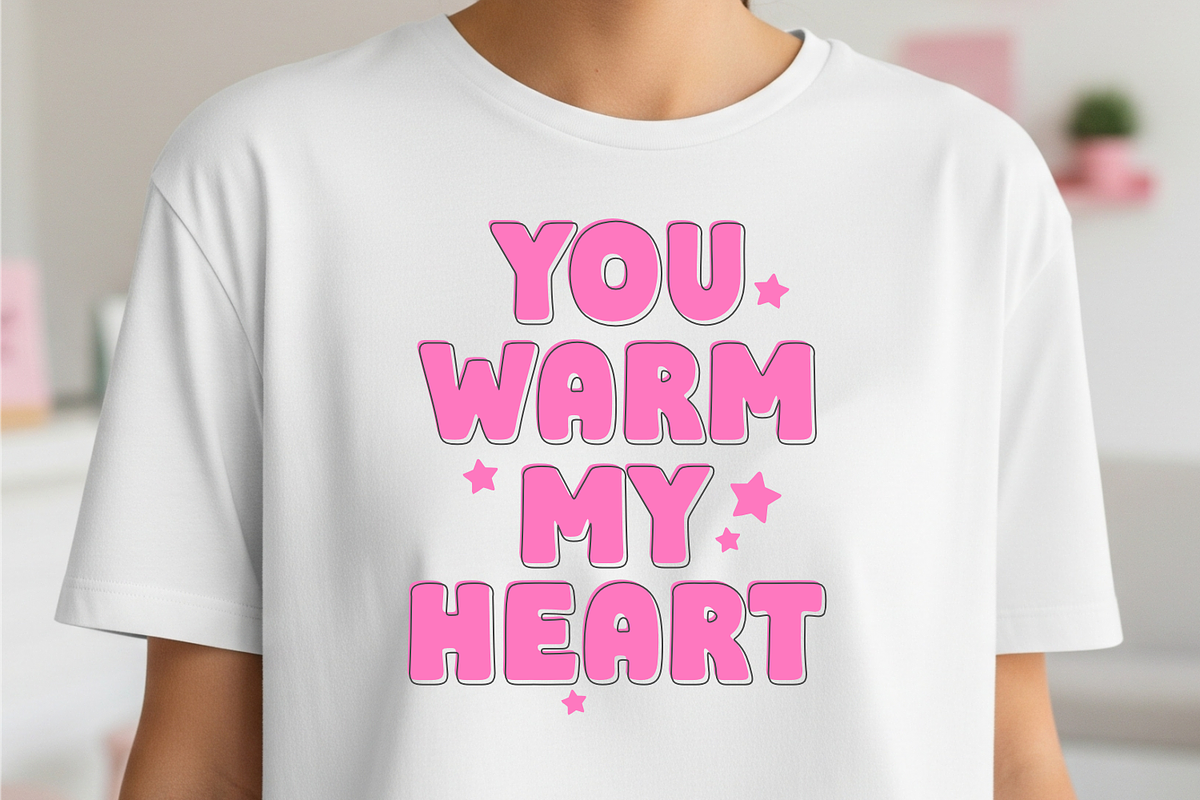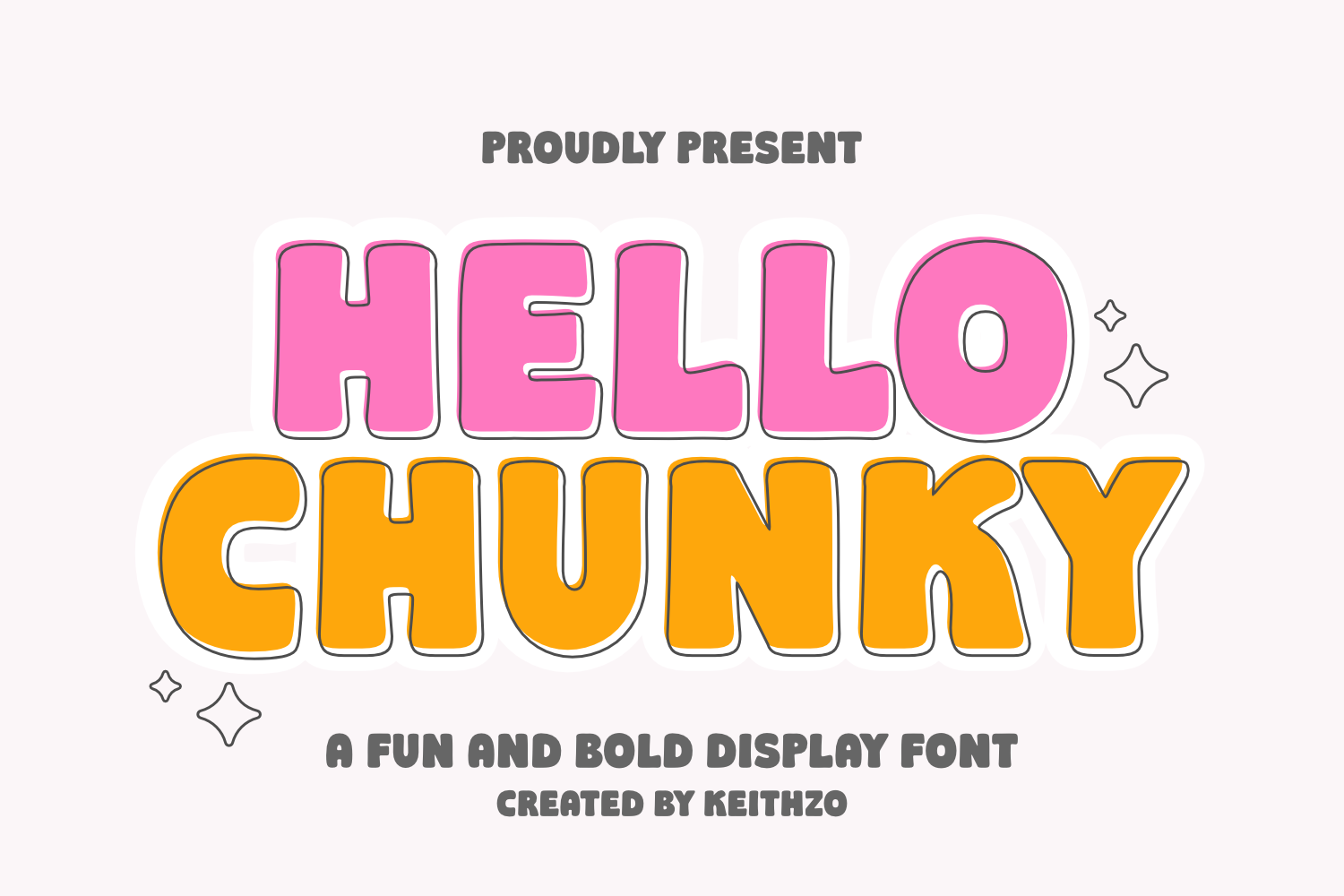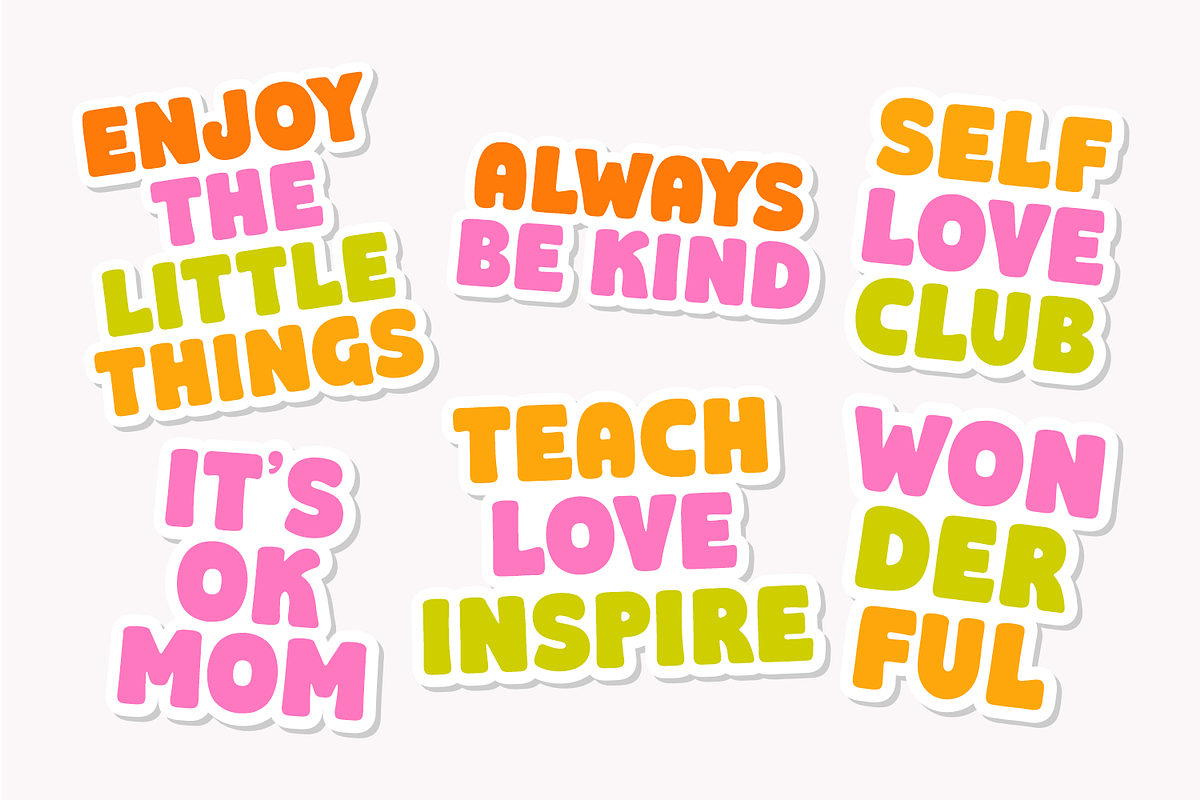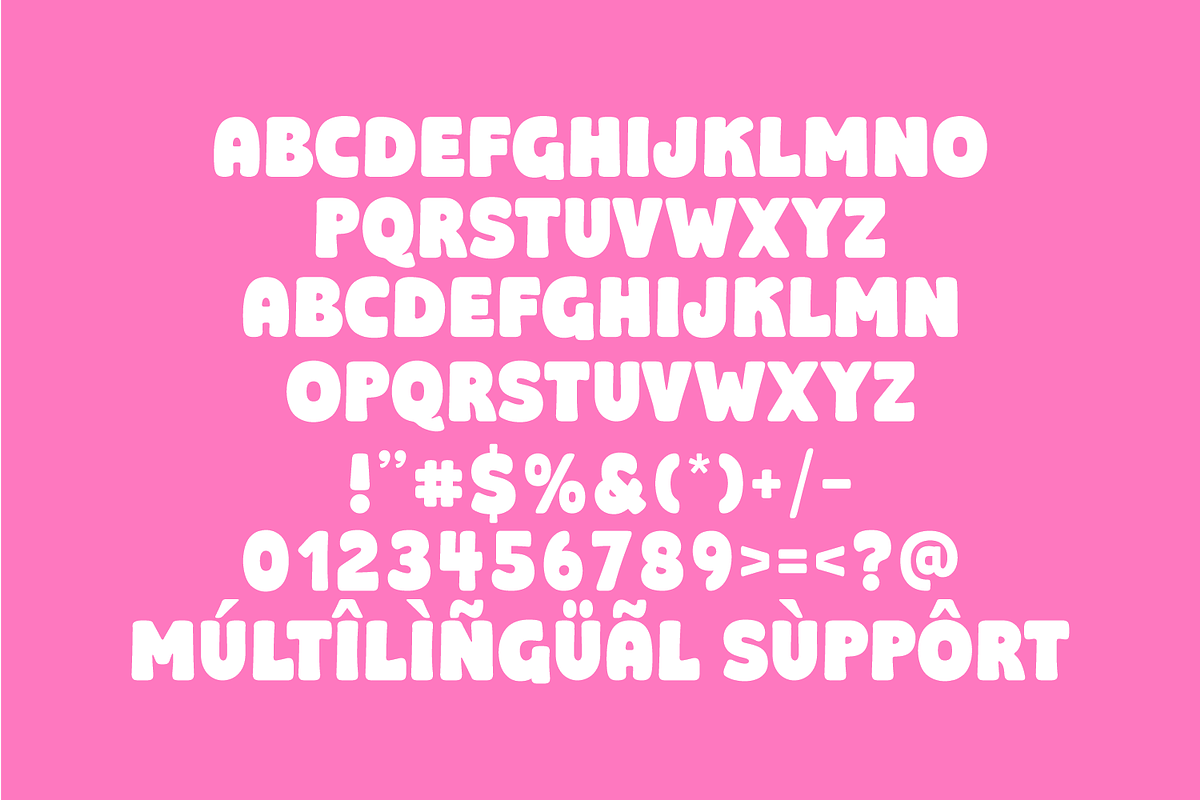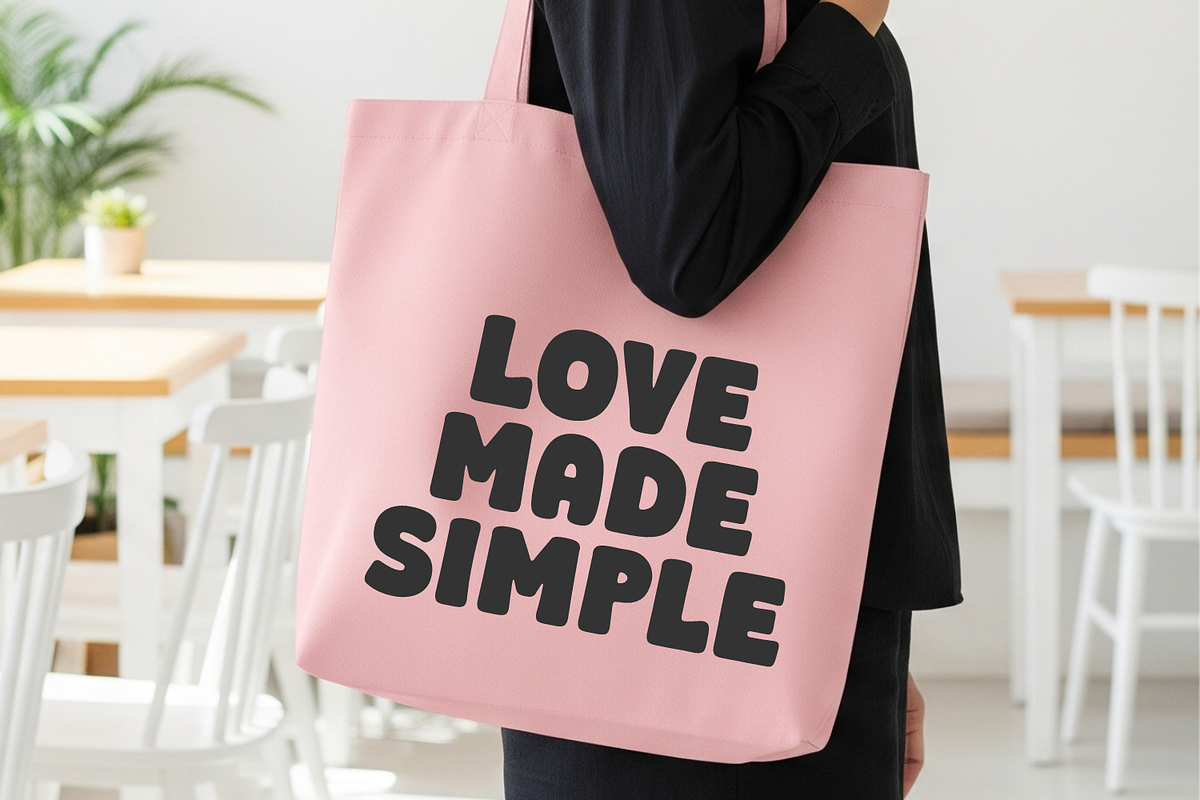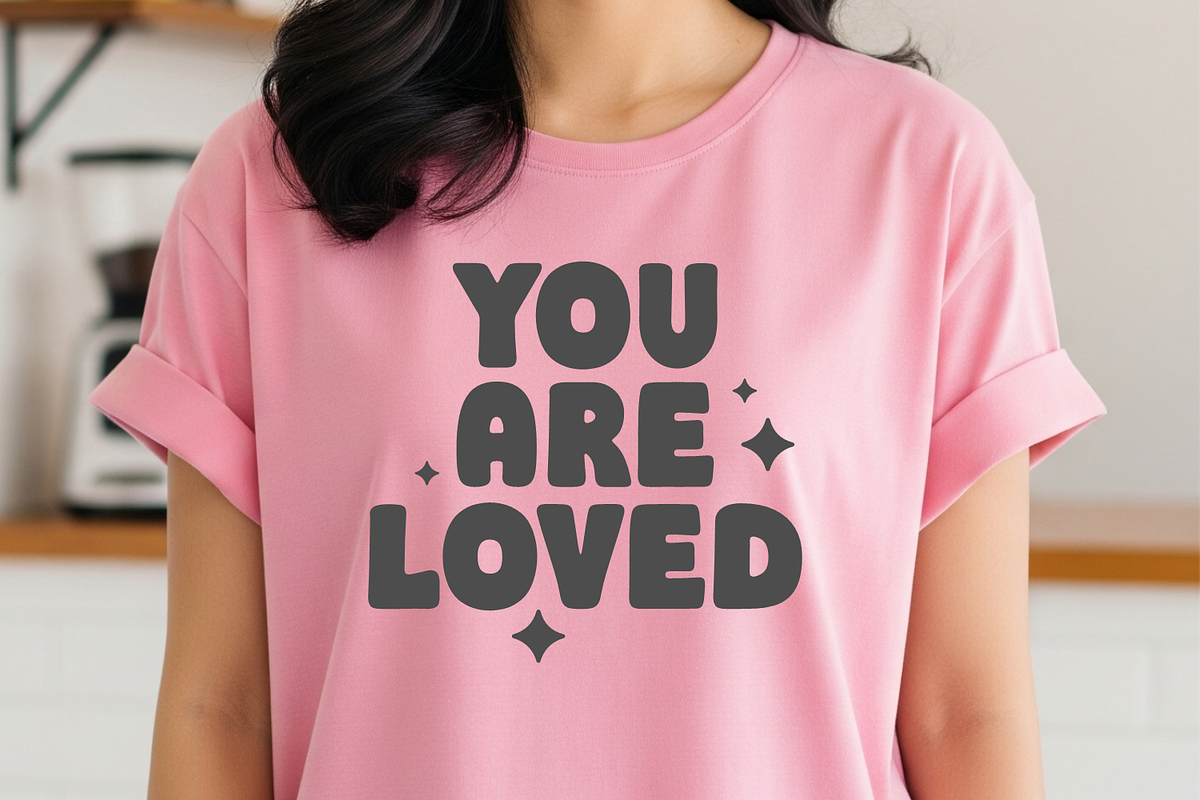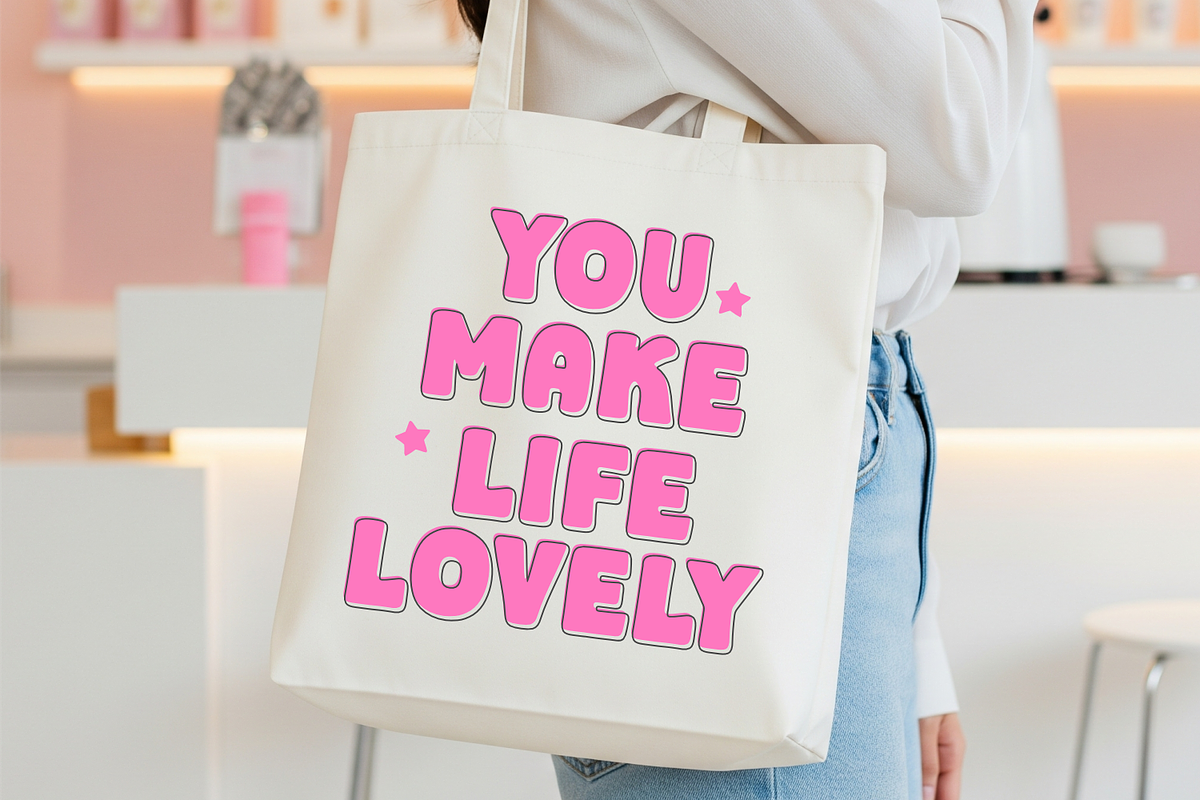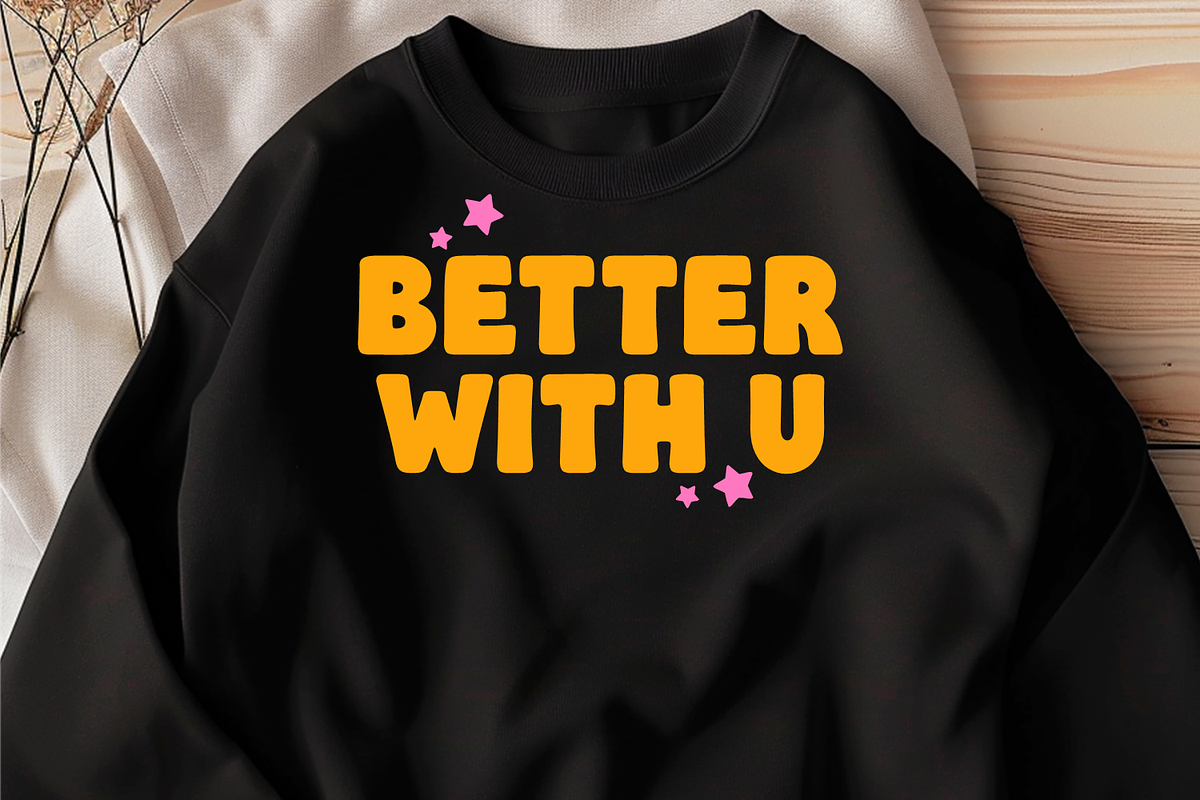
Hello Chunky - Bold Display Font
Introducing “Hello Chunky”, a lively and bold display font designed to infuse your projects with a sense of fun, energy, and joy. This chunky, bubble-inspired typeface offers thick, rounded characters that can powerfully highlight every word, making it the perfect pick for attention-grabbing titles, lively posters, and stand-out branding identities.
With its modern, friendly aesthetic, Hello Chunky can effortlessly inject a potent dash of boldness into your designs. Whether you’re crafting professional marketing collateral, developing children’s goods, or pursuing personal craft activities, this adaptable typeface can raise the visual appeal through the roof.
Fashion designers will especially appreciate how Hello Chunky can transform ordinary apparel like custom t-shirts, hoodies, and tote bags into striking style statements. But its application extends beyond physical items. From social media graphics and website banners to YouTube thumbnails, Hello Chunky lends both readability and personality, ensuring your digital content makes an unforgettable impression.